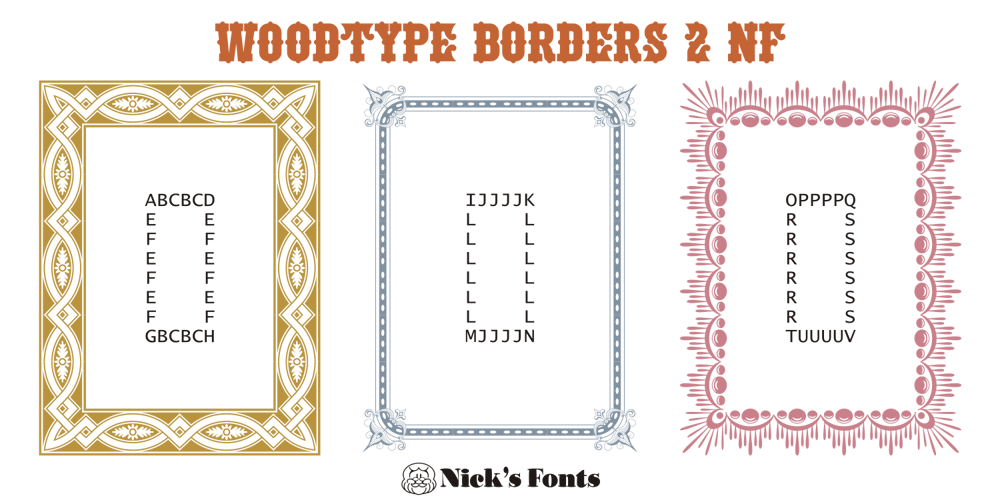
Woodtype Borders 2 NF Font Family was designed by Nick Curtis and published by Nick’s Fonts. Woodtype Borders 2 NF contains 1 styles and family package options. Here’s a workman-like collection of border elements gleaned from the specimen books of various American manufacturers of woodtype from around 1840 to 1885. Refer to the PDF guides for detailed, yet simple, instructions for constructing various border patterns, all with Victorian grace and charm.